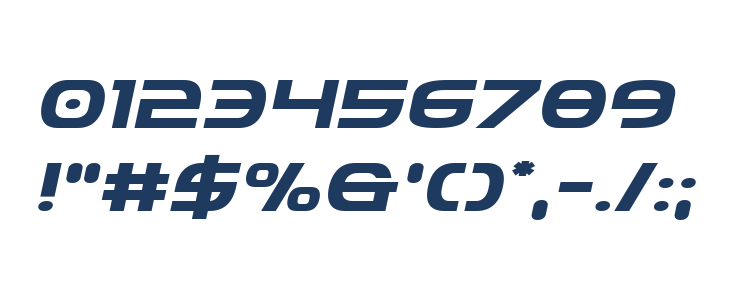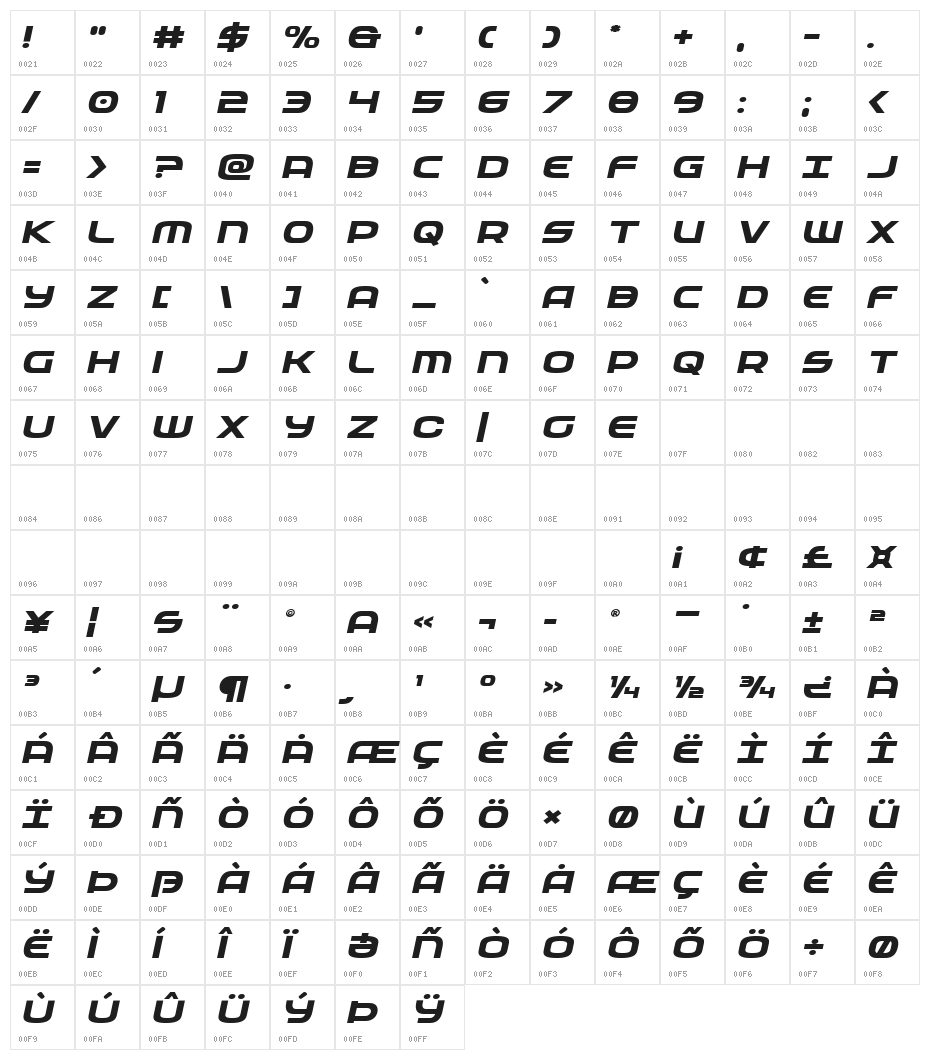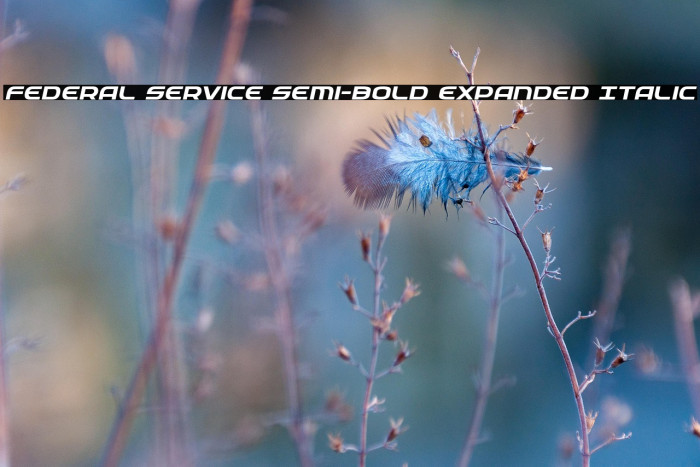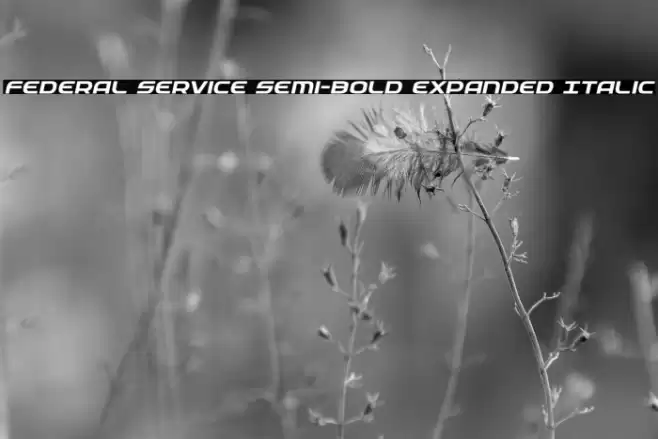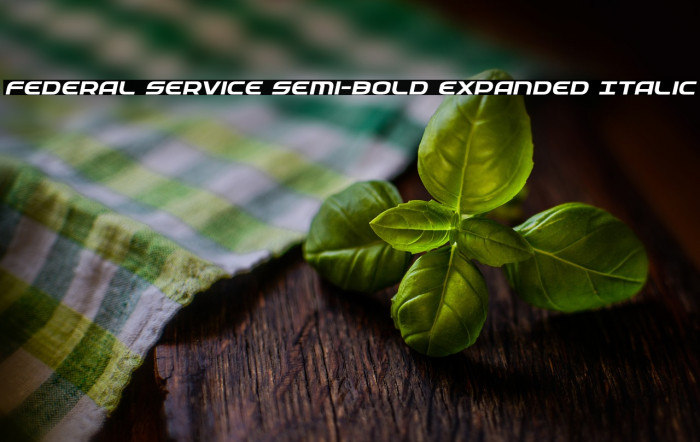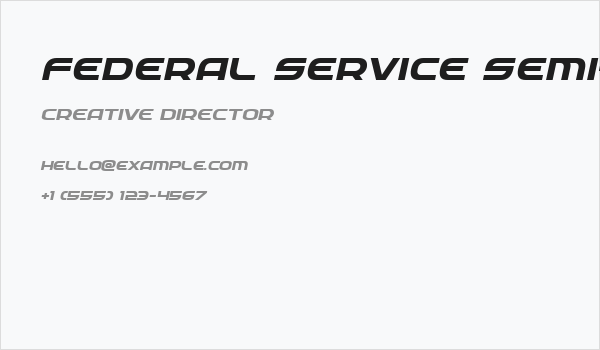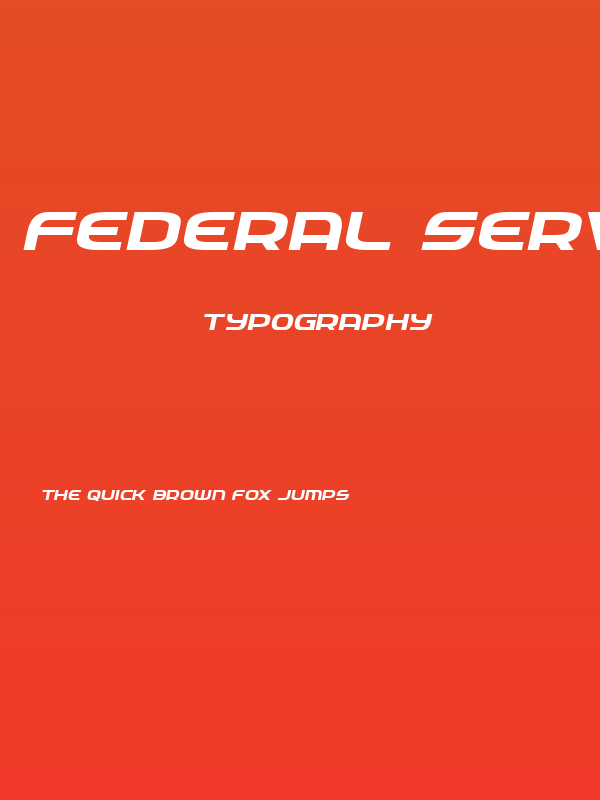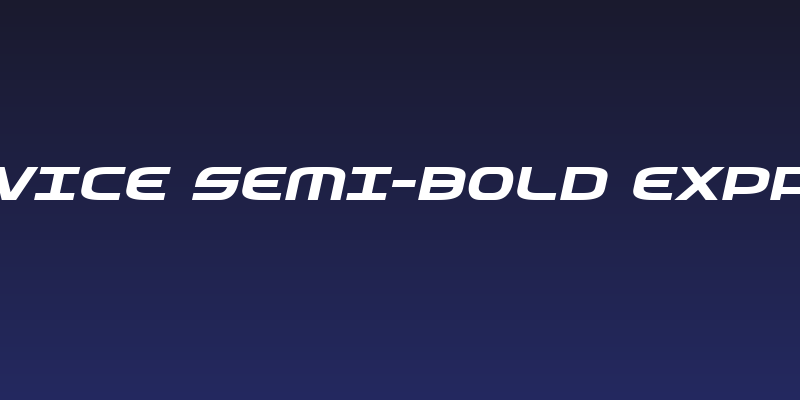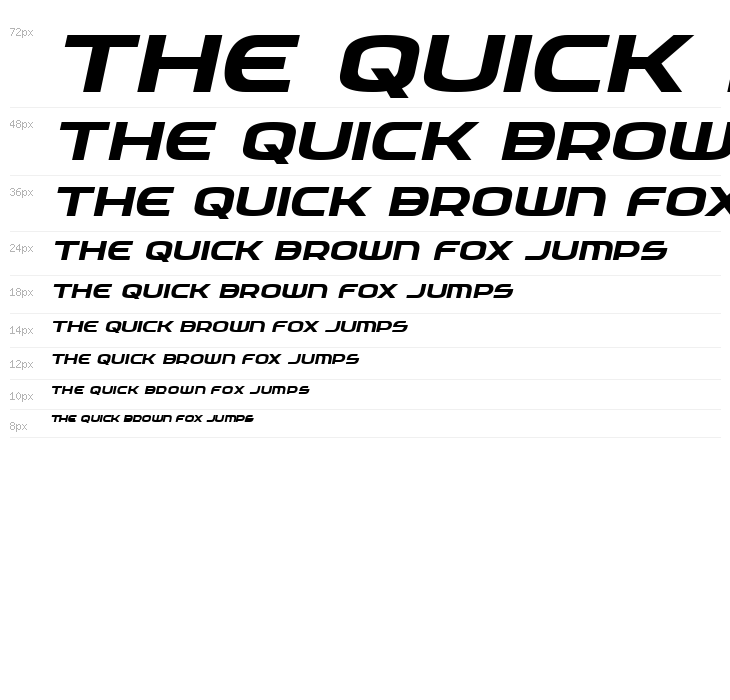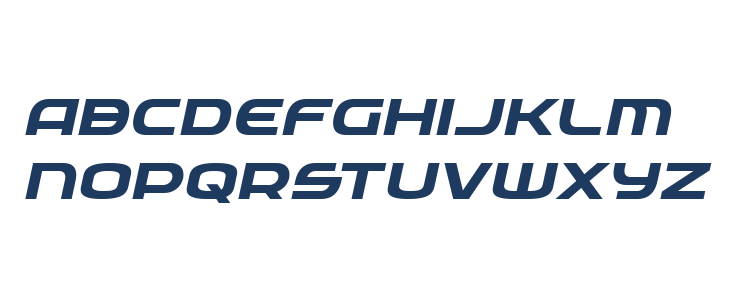
Federal Service Semi-Bold Expanded Italic Font
Federal Service Semi-Bold Expanded Italic Description
This font features a modern and dynamic style with a semi-bold weight, giving it a strong presence. The characters are expanded, providing a sense of openness and readability. The italic slant adds a sense of motion and speed, making it ideal for projects that require a contemporary and energetic feel. The strokes are consistent, with medium contrast, ensuring clarity and legibility across various sizes. The design is sleek and professional, suitable for a wide range of applications.
| Proposed Projects | Ideal for branding, advertising, sports team logos, and dynamic headlines. |